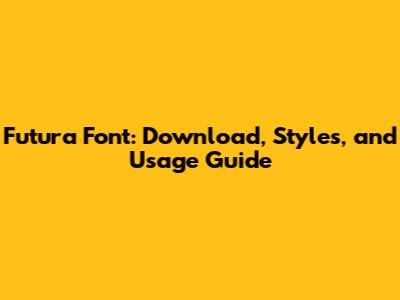
Hey guys! Ever wondered about that clean, geometric font you see everywhere? Chances are, it's Futura! This iconic typeface has been a staple in design for decades, and for good reason. It's versatile, modern, and just plain looks good. In this guide, we're diving deep into the world of Futura, covering everything from its origins and different styles to where you can download it for free (or affordably) and how to use it effectively. We'll also explore the futura now text bold free download options available to you, so you can start using this awesome font right away. Buckle up, because we're about to become Futura font experts!
The History and Origins of Futura
Let's rewind a bit, shall we? Futura's story begins in the late 1920s, a time of artistic and technological innovation. Designed by Paul Renner, a German typographer, Futura was a product of the Bauhaus movement, which emphasized clean lines, geometric shapes, and a sense of modernism. Renner wasn't just designing a font; he was creating a visual language that reflected the spirit of the time. The font's name, "Futura," which means "future" in Latin, perfectly captured its forward-thinking aesthetic and the era's optimism about the future.
Renner's design was groundbreaking. It moved away from the ornate, sometimes cluttered typefaces of the past and embraced simplicity. Futura's geometric construction – based on near-perfect circles, triangles, and squares – gave it a distinct, almost mathematical, feel. This clarity and precision made it incredibly legible, even at small sizes, making it ideal for everything from headlines to body text. Its clean appearance and geometric structure made it very easy to read and work with. It was quickly adopted by designers and advertisers, who were drawn to its modern and sophisticated look.
The impact of Futura extended far beyond its initial use. It became a symbol of modernism and was used in various fields, from architecture and industrial design to advertising and corporate branding. The font's association with modernity and progress made it a popular choice for everything from company logos to public signage. Its use on the Apollo 11 plaque that the astronauts left on the moon solidified its place in history. The font also found a home in various other uses. It was on the original logo for Volkswagen, which, like the font itself, aimed to be a symbol of modernity and progress. It has also been widely used in film, with its appearance in the films of Wes Anderson, and it's also a frequent visitor in the advertisement industry.
Futura Font Styles and Variations
Alright, let's talk about the different flavors of Futura! This isn't just a one-size-fits-all font; it comes in a variety of styles, weights, and widths, giving you plenty of options to play with. First, we have the basic building blocks: regular, italic, bold, and bold italic. These are the core styles you'll find in almost every Futura family. They provide a solid foundation for any design project. But the fun doesn't stop there!
Moving beyond the basics, you'll encounter different weights, like light, medium, and heavy. These weights allow you to create visual hierarchy and emphasize certain elements of your design. Lighter weights are perfect for body text, while heavier weights are great for headlines and call-to-actions. The variations don't stop here, the width is also an important aspect of the font and you can explore different versions, like condensed and extended.
Beyond that, you have the option to use multiple styles of the font to create contrast and visual interest. By using Futura now text bold in a headline with the regular style of the text, it will give your design a sophisticated look and feel. Moreover, in this situation, you will easily be able to draw attention to the most important parts of the text. There are also specialized versions available. Some versions of Futura include small caps, which are great for certain design uses and create another option to differentiate the text.
Now, about the specifics. The different weights and widths are what really make Futura versatile. You can create a full visual experience with Futura, from a sleek, minimalist website to a bold, eye-catching advertisement. The italic versions of Futura are elegant and add a touch of sophistication. And, of course, the bold variations pack a punch, perfect for headlines and important text. It's a font that really lets you experiment and get creative with your design choices. Understanding these different styles is key to using Futura effectively and achieving the look and feel you want. The font's flexibility is one of the main reasons it's still so popular today.